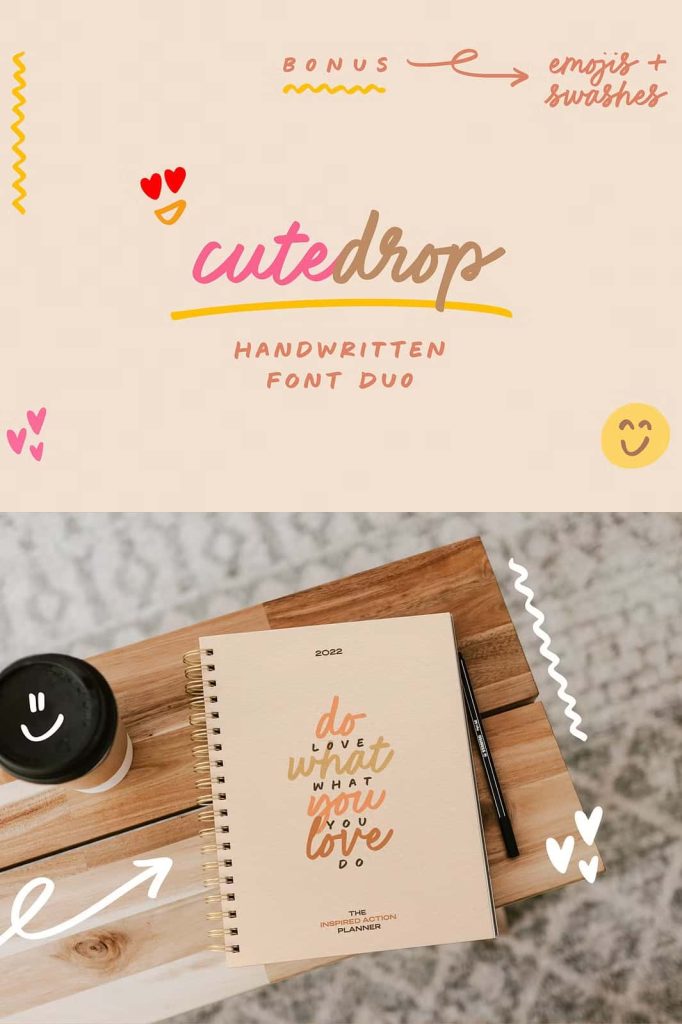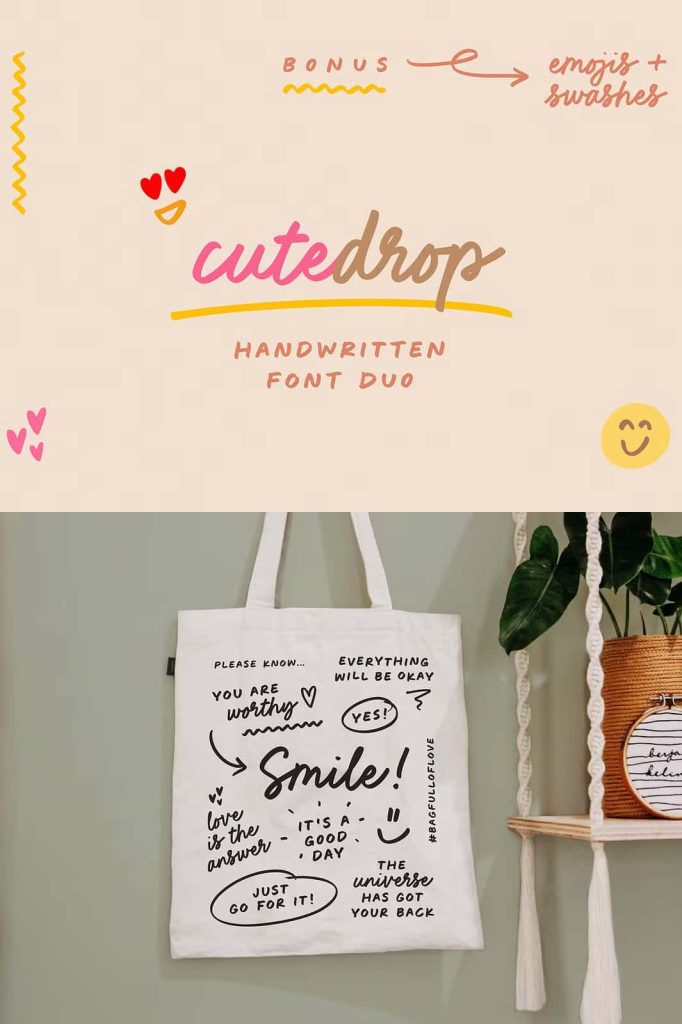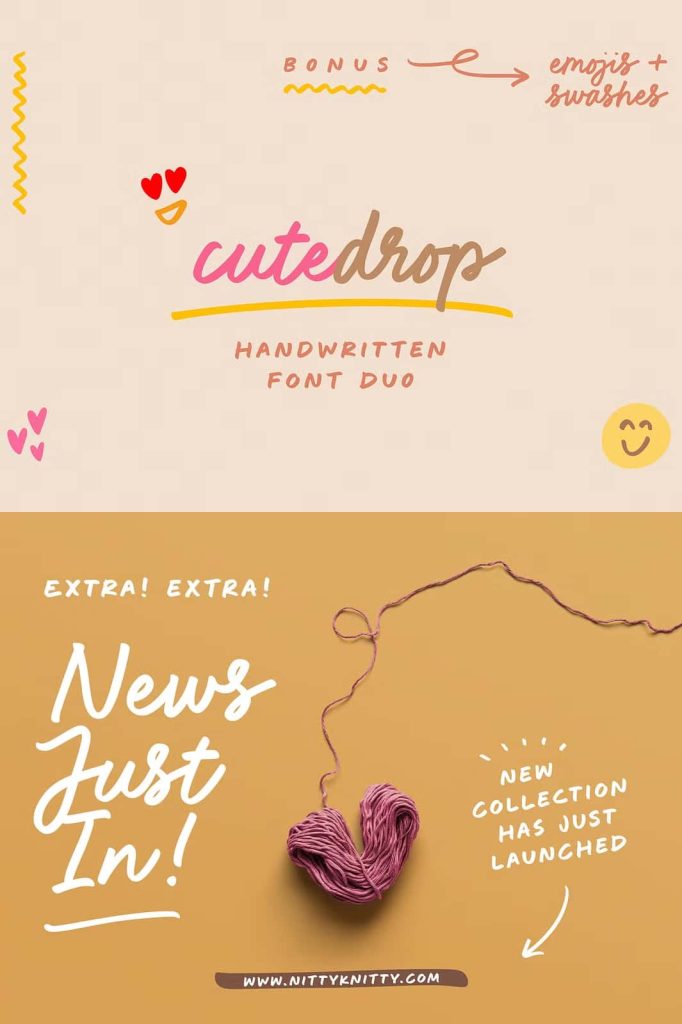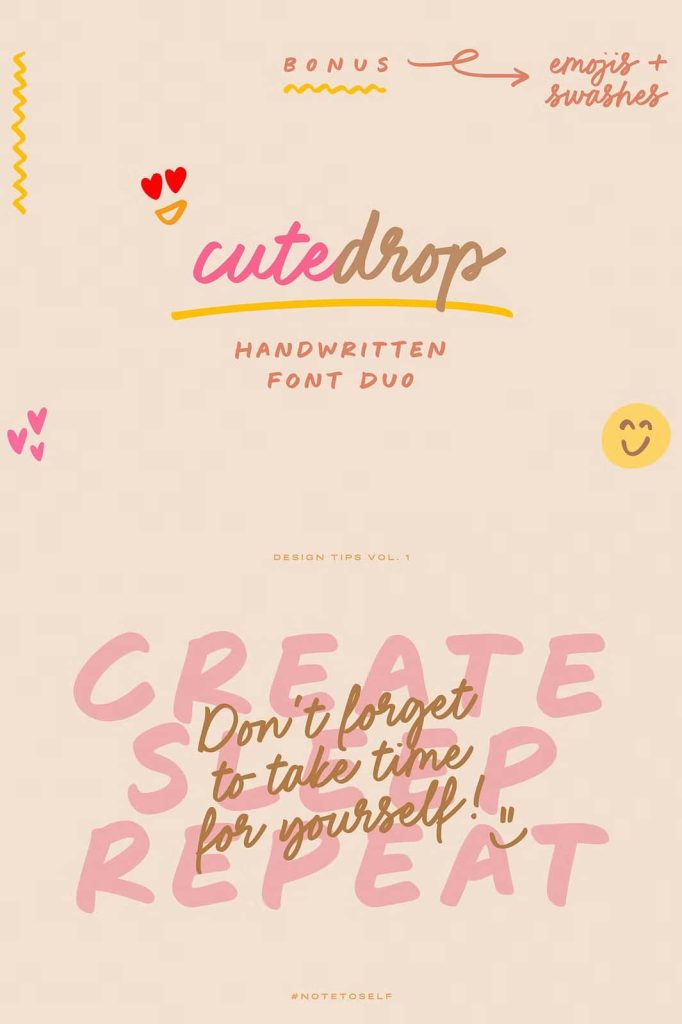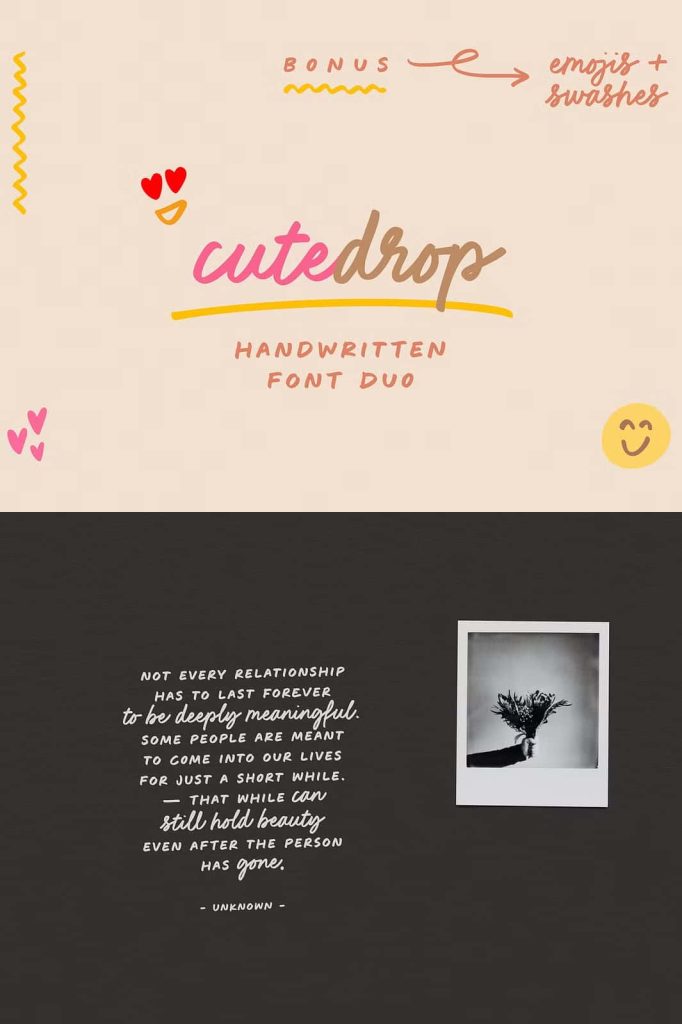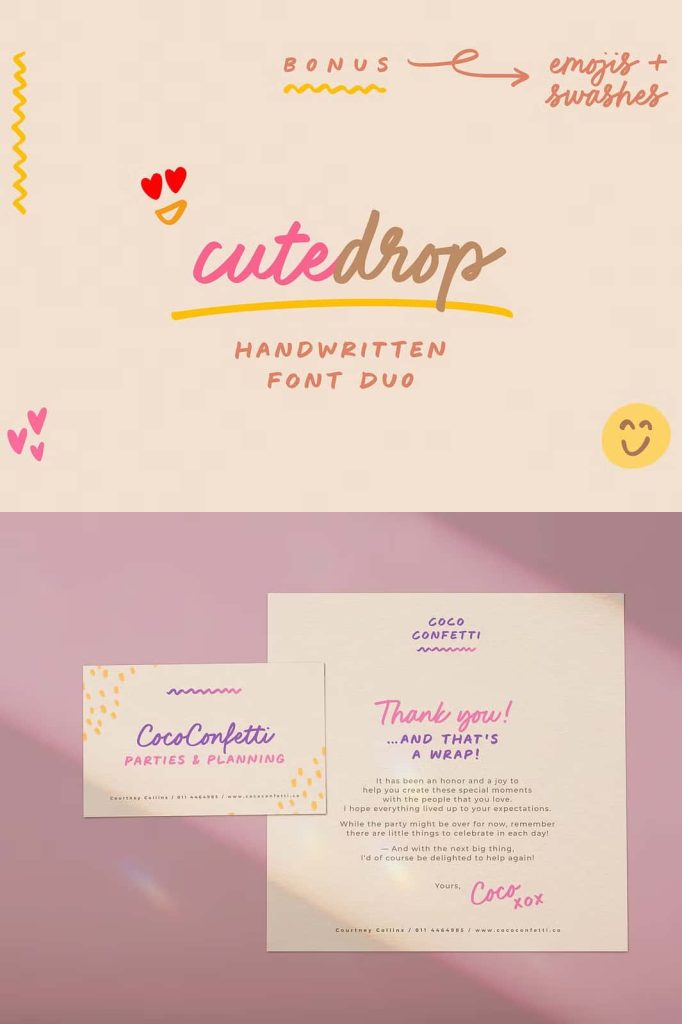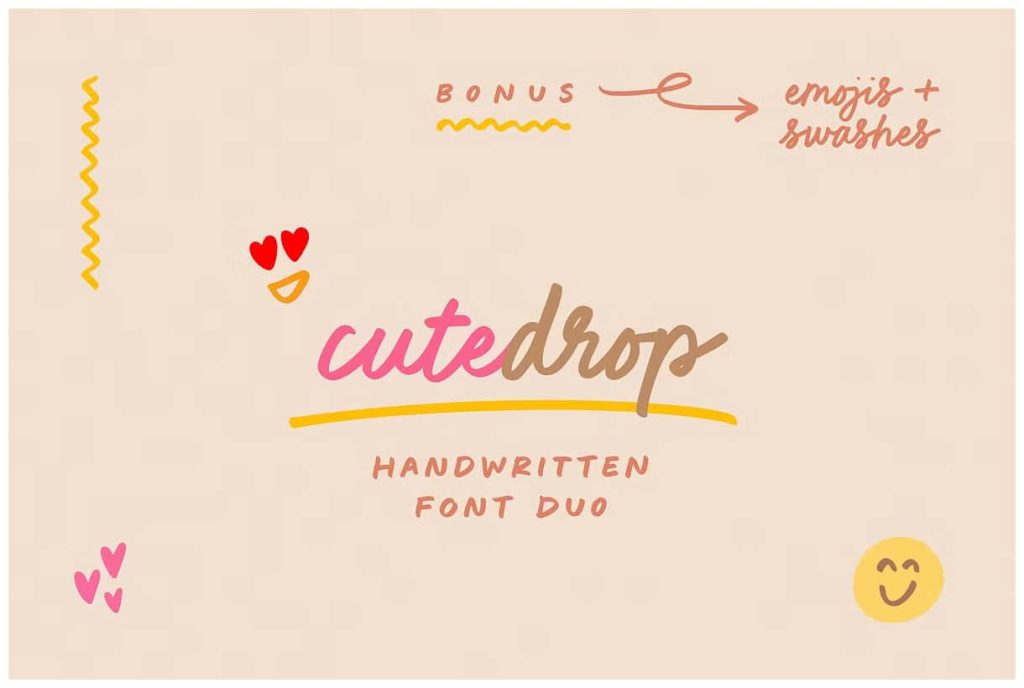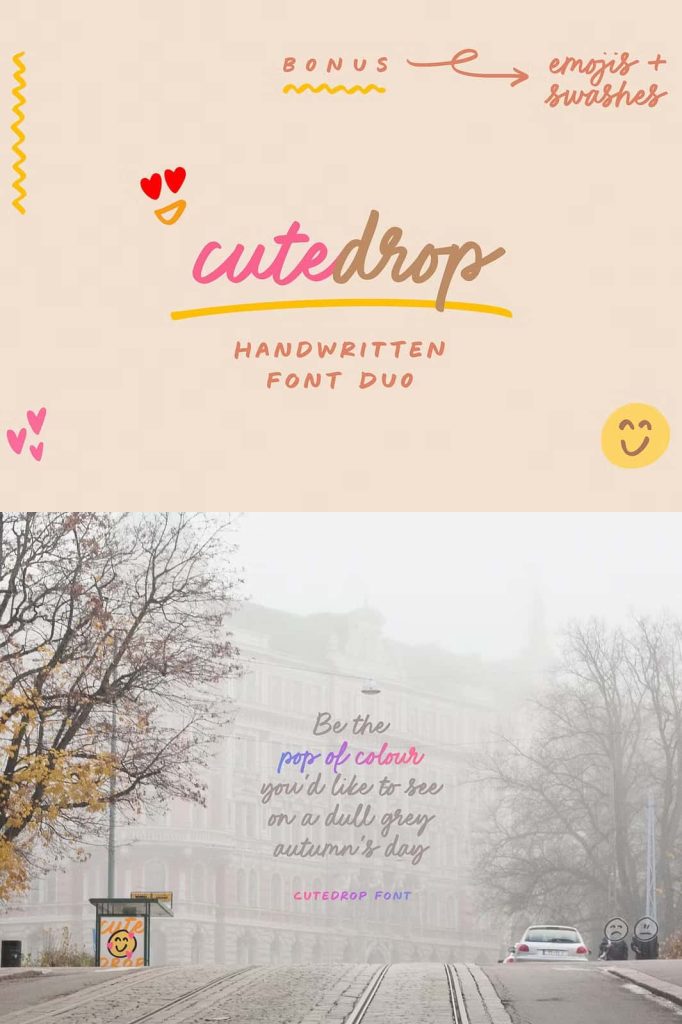
CuteDrop Font Duo: A Charming Handwritten Script and All-Caps Typeface for Creative Design
CuteDrop is a delightful handwritten font duo created to bring warmth, personality, and authenticity to your visual projects. Designed using the same marker pen, both the script and all-caps styles complement each other perfectly. This consistent handmade touch allows you to use them together seamlessly or experiment by mixing and matching for unique results. CuteDrop enhances your creative work with a playful charm that feels inviting, expressive, and full of character.
Experience a Natural, Handcrafted Look
The handcrafted nature of CuteDrop is one of its strongest qualities. Each stroke carries the texture and rhythm of genuine handwriting, allowing your designs to feel more personal and engaging. Instead of relying on cold, uniform lettering, this duo font captures the essence of handwritten expression. This gives your text a lively personality and boosts the emotional appeal of your layout.
The script font flows gracefully with smooth curves and soft transitions, making it ideal for highlighting key messages. Meanwhile, the all-caps version features clean, bold letterforms that maintain the same handcrafted feel but deliver stronger emphasis. Together, these two styles give you the flexibility to create visual balance and contrast without losing consistency.
Perfect Harmony for Mixing, Matching, and Pairing
CuteDrop shines when used as a duo, giving you endless creative possibilities. Because both fonts were drawn with the same marker, they share identical texture, weight, and energy. This allows you to mix them effortlessly in headlines, quotes, labels, and logos while maintaining a cohesive design aesthetic.
Use the flowing script for names, creative accents, or decorative titles. Combine it with the structured all-caps font for subtitles, callouts, or branding elements that require clarity and impact. This versatility makes CuteDrop a valuable asset for creators who want to bring harmony and personality into their work.
An Ideal Typeface for Branding, Social Media, and Creative Projects
In today’s visual landscape, authenticity plays an important role in brand communication. CuteDrop helps you build a friendly and approachable identity that resonates with audiences. Its handwritten look works beautifully for logos, product packaging, boutique branding, stationery, menus, and label designs. The charming style ensures your brand message feels genuine and memorable.
For digital creators, CuteDrop enhances social media content with a human touch. Use it for inspirational quotes, promotional graphics, highlight covers, blog headers, or captions that require a more expressive tone. Its legible and stylish form helps your message stand out in a visually competitive environment.
A Versatile Duo for Invitations, Prints, and Everyday Design
CuteDrop is a reliable choice for creative work that requires a soft, friendly tone. From wedding invitations and greeting cards to nursery art and personal prints, the font adds warmth to every design. The playful balance between script and all-caps styles ensures that both formal and casual concepts can be communicated clearly and attractively.
Use this duo to craft personalized gifts, label collections, planners, journals, and printable materials. Each letter supports the overall charm of your design and gives your content a handcrafted finish that feels intentional and inviting.
Enhance Your Creative Expression with CuteDrop
CuteDrop is more than a simple handwritten font duo; it is a design tool that encourages creativity and expressive storytelling. Its authentic marker-drawn texture, harmonious pairing, and versatile style make it a valuable resource for designers seeking a personal touch. Whether used together or individually, both fonts bring unity, charm, and clarity to your visual compositions.
Bring your projects to life with CuteDrop and enjoy a font duo that celebrates creativity, character, and artistic personality. With its handcrafted charm and flexible design potential, CuteDrop elevates your work and helps you communicate with warmth and originality.